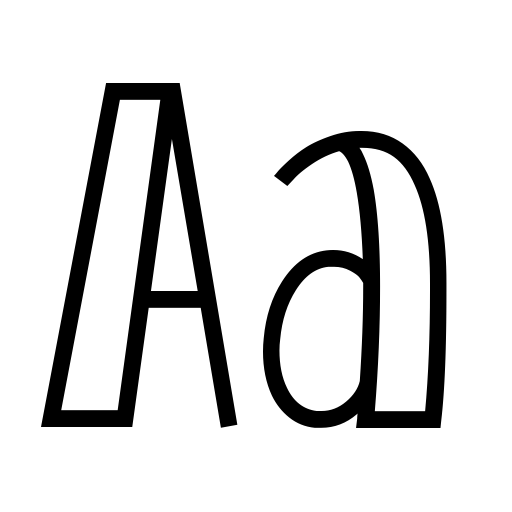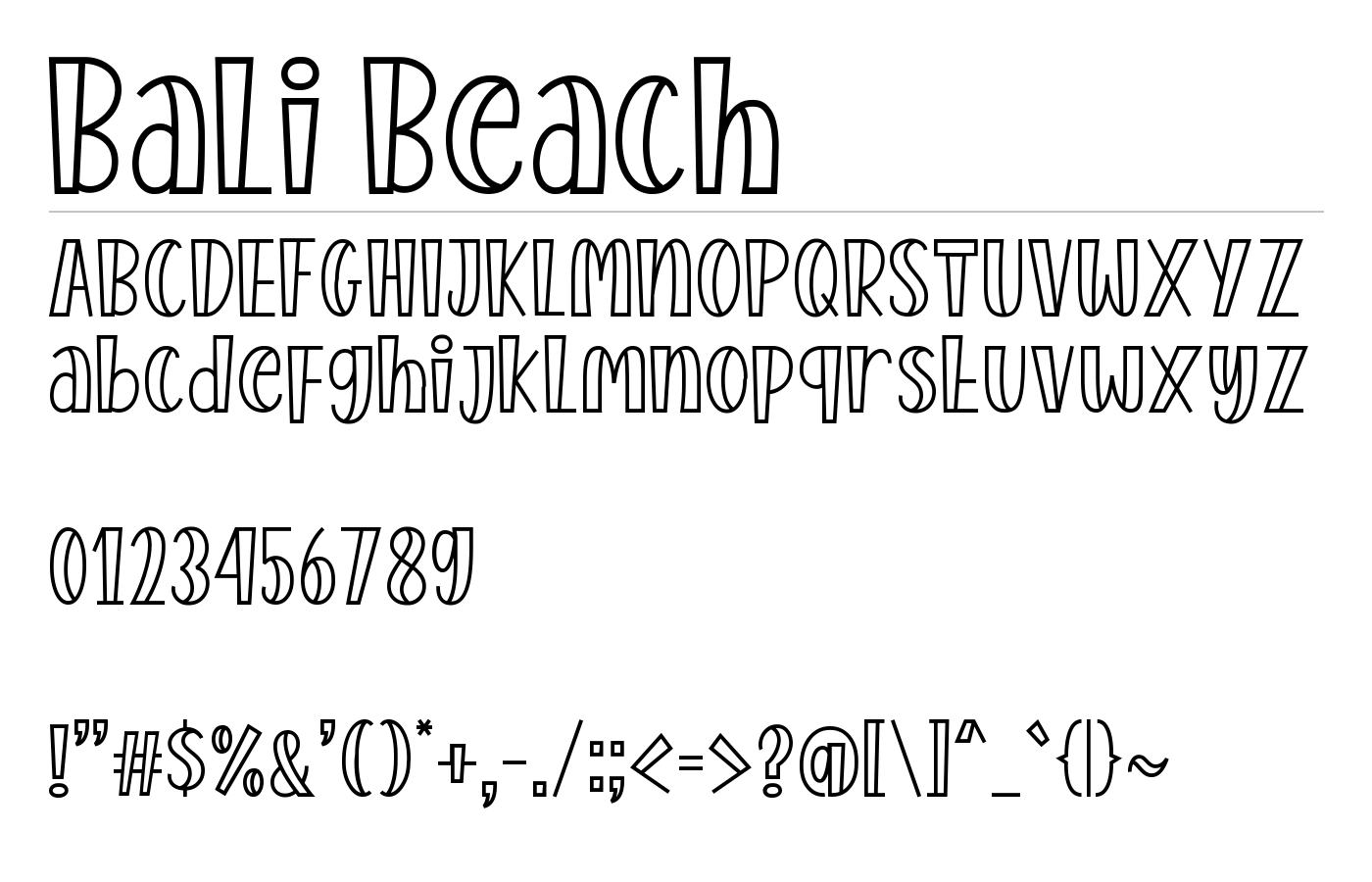
Bali Beach Font is a playful and quirky sans serif typeface with tall, narrow letterforms and a hand-drawn feel. Its uneven strokes and lively curves create a casual and fun personality, making it perfect for creative projects, children’s designs, or laid-back branding that seeks a friendly and approachable vibe. This font works especially well for headlines, logos, and posters where a unique and informal style is desired.
Bali Beach Font
About Bali Beach Font
| Font family | Bali Beach Font |